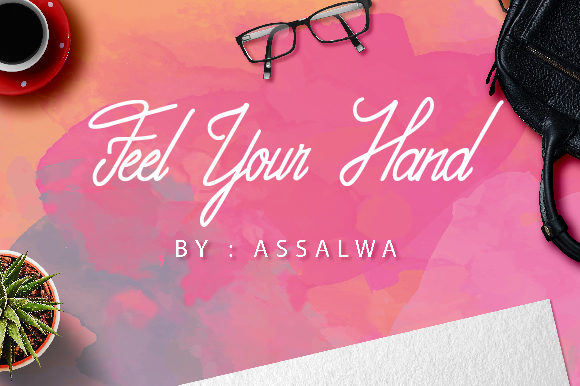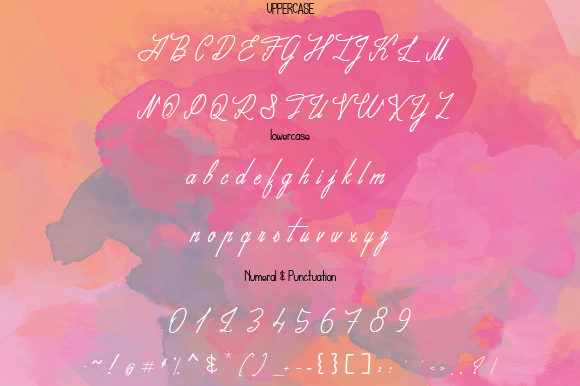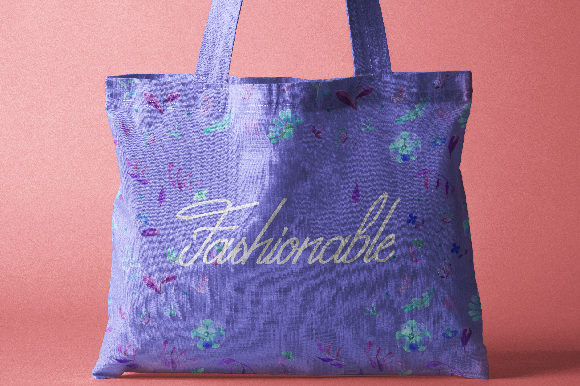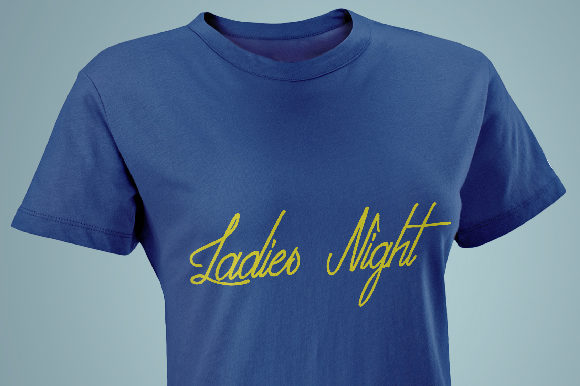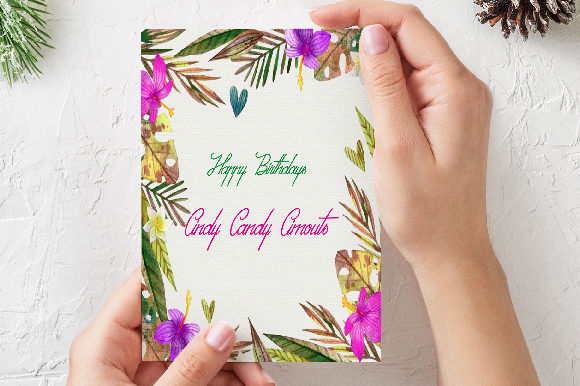
Feel Your Hand Font
About Feel Your Hand Font
The Feel Your Hand is a simple handwritten font. It has a modern style with an elegant touch.
It can be used for various purposes, such as headings, signature’s, logos, wedding invitations, t-shirts, letterheads, signage’s, labels, news, posters, badges, and much more!